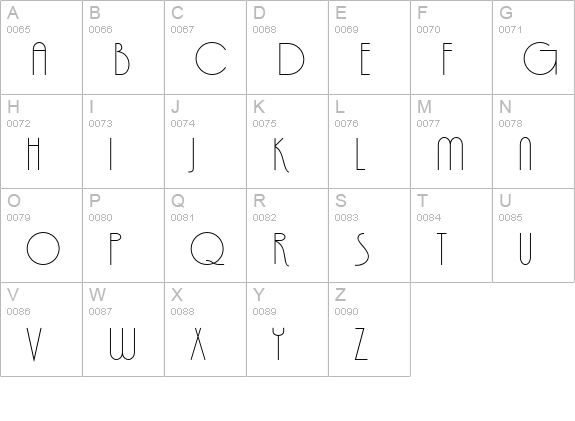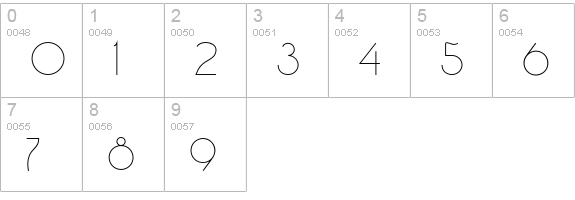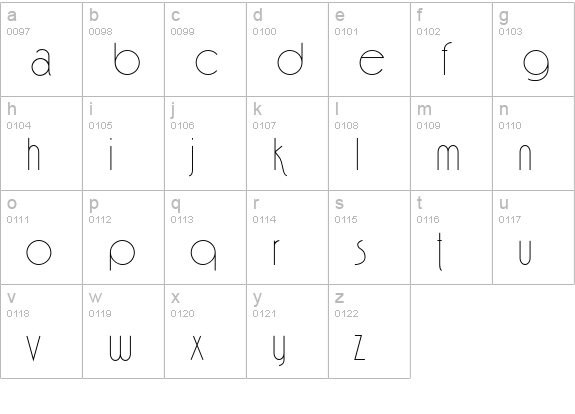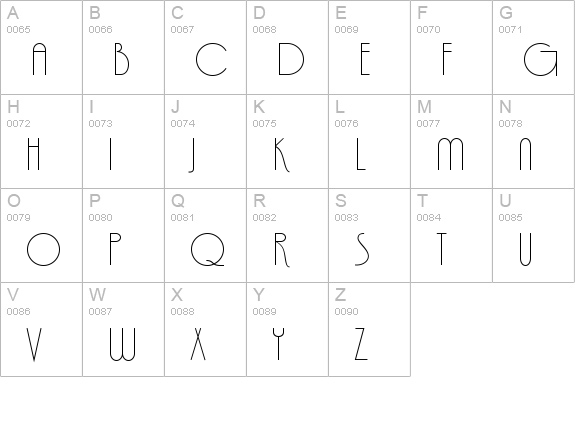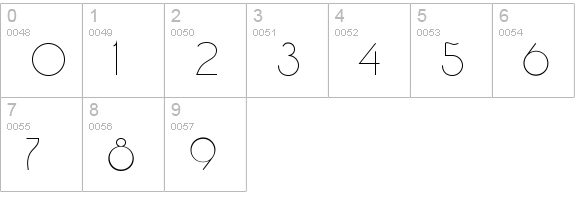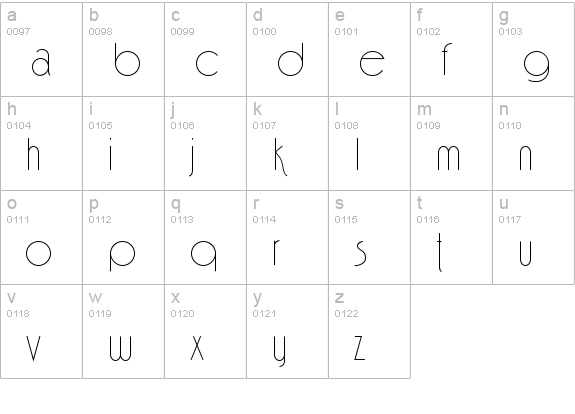
FinaFont Font Details
Introducing FinaFont, a stunning and versatile font that is sure to make a statement in any design project. This modern and elegant typeface features sleek lines and a contemporary aesthetic that will elevate your designs to the next level. With its unique characters and stylish curves, FinaFont is perfect for branding, logos, signage, and more. And the best part? FinaFont is completely free to download at FontsMarket.com! That's right, this high-quality font can be yours at no cost, allowing you to add a touch of sophistication to your projects without breaking the bank. Don't miss out on this fantastic opportunity to enhance your designs with FinaFont. Download it today and start creating beautiful typography that stands out from the rest.